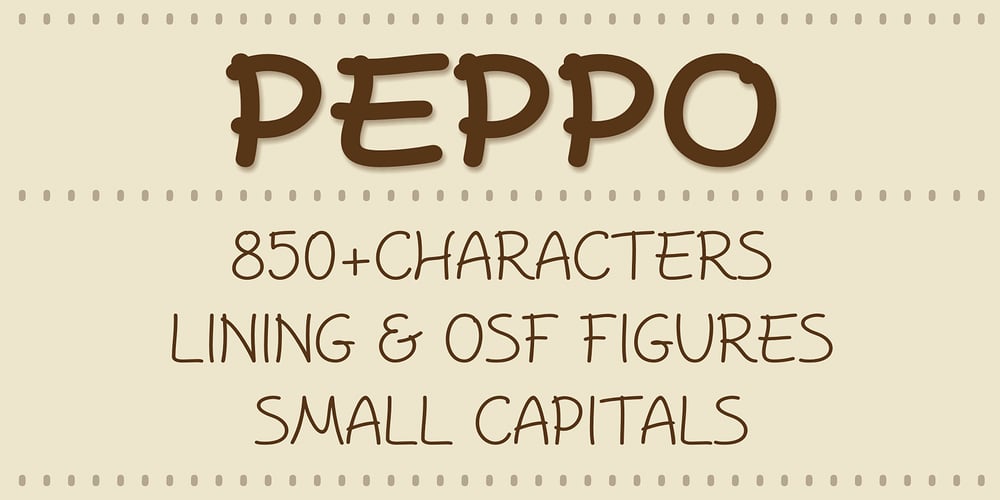
Peppo Font Family was designed by Paweł Burgiel and published by Paweł Burgiel. Peppo contains 12 styles and family package options. Peppo is an informal, simple, readable and easy-on-the-eyes handwritten typeface inspired by hand-written script. Each font providing an organic and spontaneous hand lettering feel. Combination of 12 styles (3 widths and 4 weights) and wide range of glyphs guarantee high freedom and flexibility of typographic work. Peppo typeface includes extended Latin characters with capitals, small letters and small capitals, lining and old style figures, superscripts, scientific inferiors, currency symbols and arrows. You can use this font to create childrenís publications, posters, CD labels, T-shirts, coffee mugs, and banners. Important technical notice: Combining diacritical marks (U+0300, U+0301, U+0303, U+0309, U+0323) are only ‘compatibility characters’ for codepage ‘MS Windows 1258 Vietnamese’. Combining diacritical marks (U+0312, U+0315, U+0326) are only ‘compatibility characters’ for Czech, Latvian, Romanian and Slovak language. OpenType features ‘Mark to Base’ and ‘Mark to Mark’ is not supported. Kerning is prepared as single (‘flat’) table for maximum possible compatibility with older software.